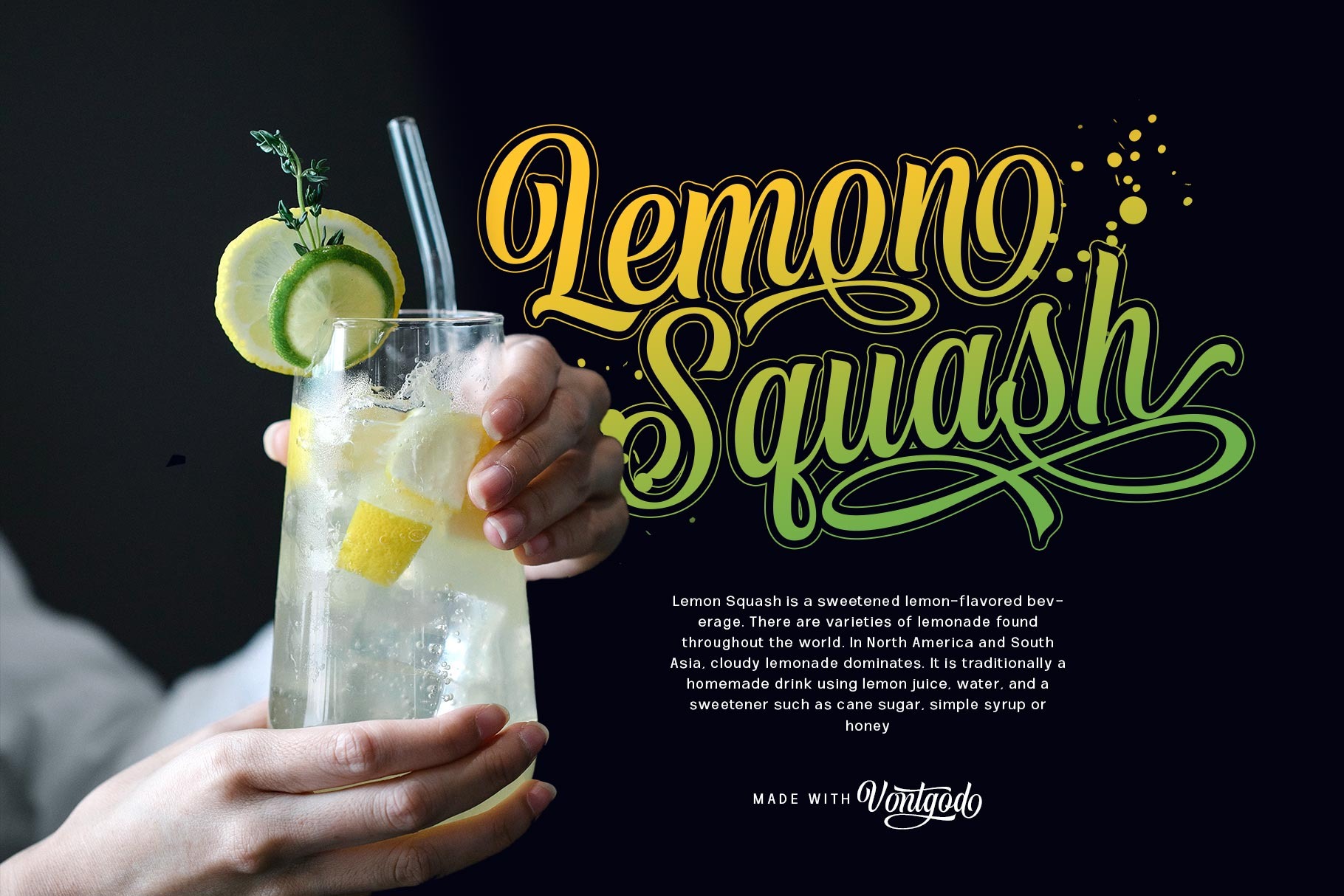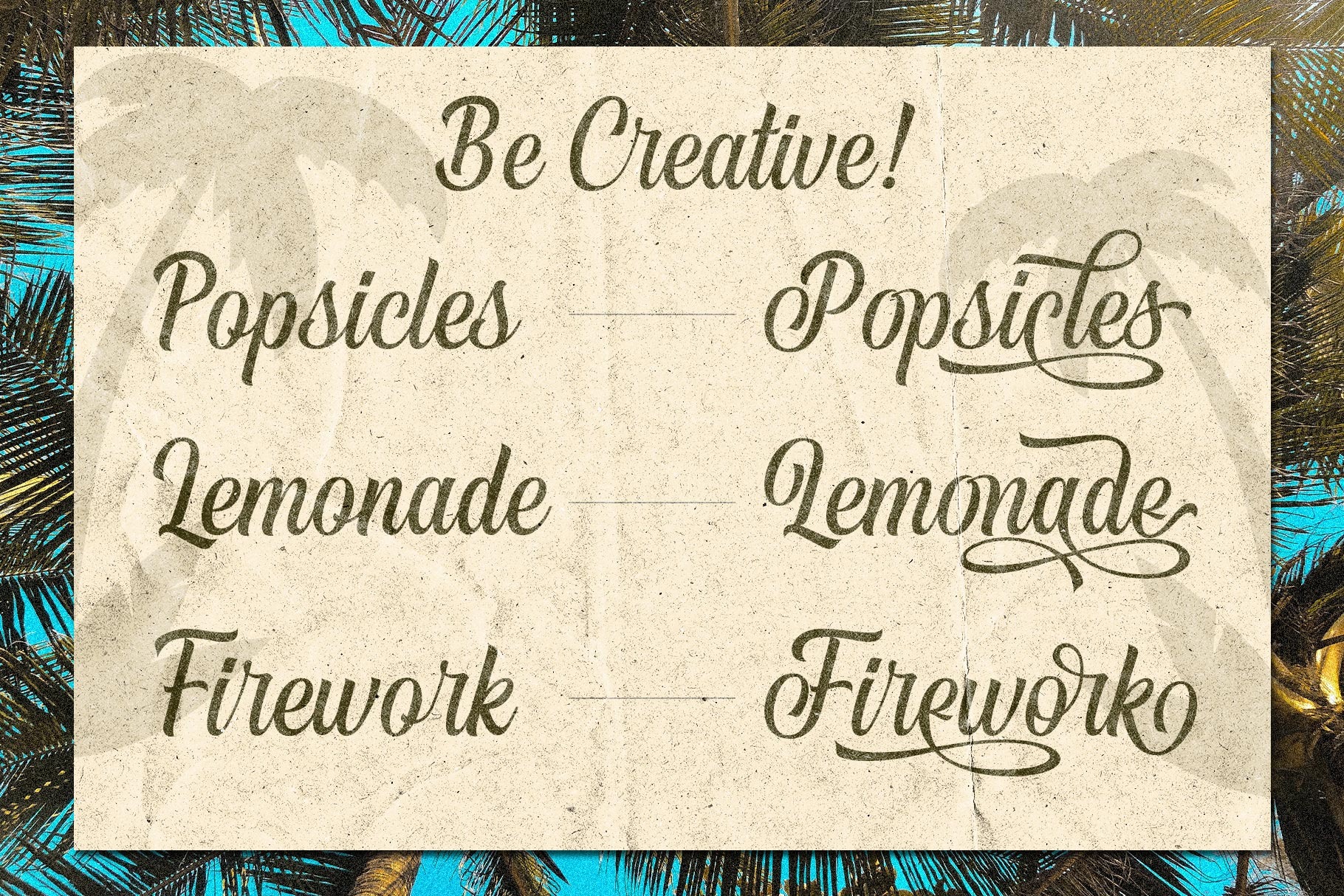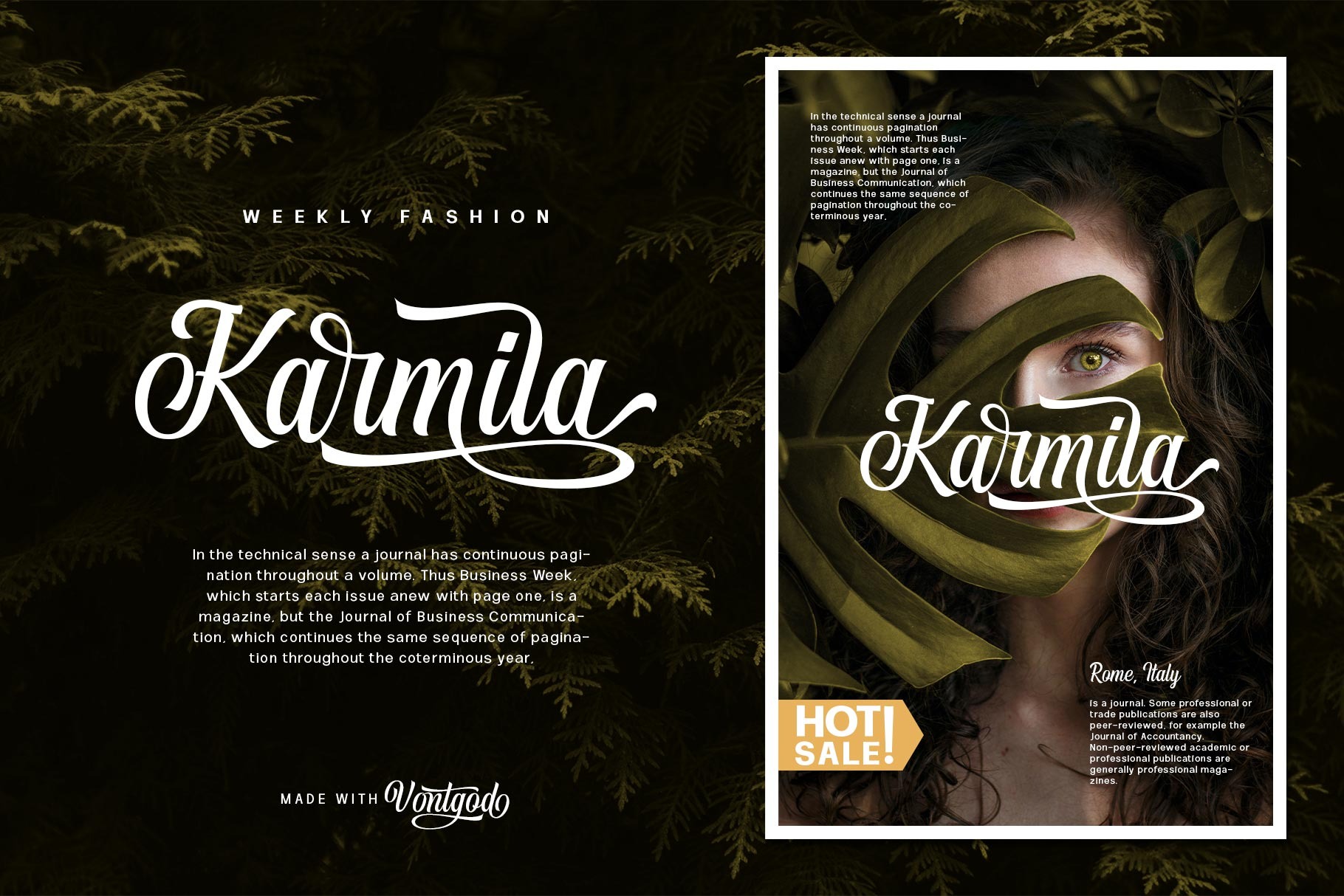
Vontgod Font
Vontgod Script Font
This is a new modern script font created by alit design with an irregular baseline. Inspired by the classic era typeface in the 1800 era but is combined with today’s era and produces elegant script and charming typeface. The details of the “Vontgod Typeface” shape are very subtle and flow creating unique and gorgeous curves. Elegant script typefaces like “Vontgod Typeface” are very easy to apply to any design, especially those with an elegant and smooth concept, apart from that this font is very easy to use in both design and non-design programs because all alternates and glyphs are supported by Unicode (PUA).